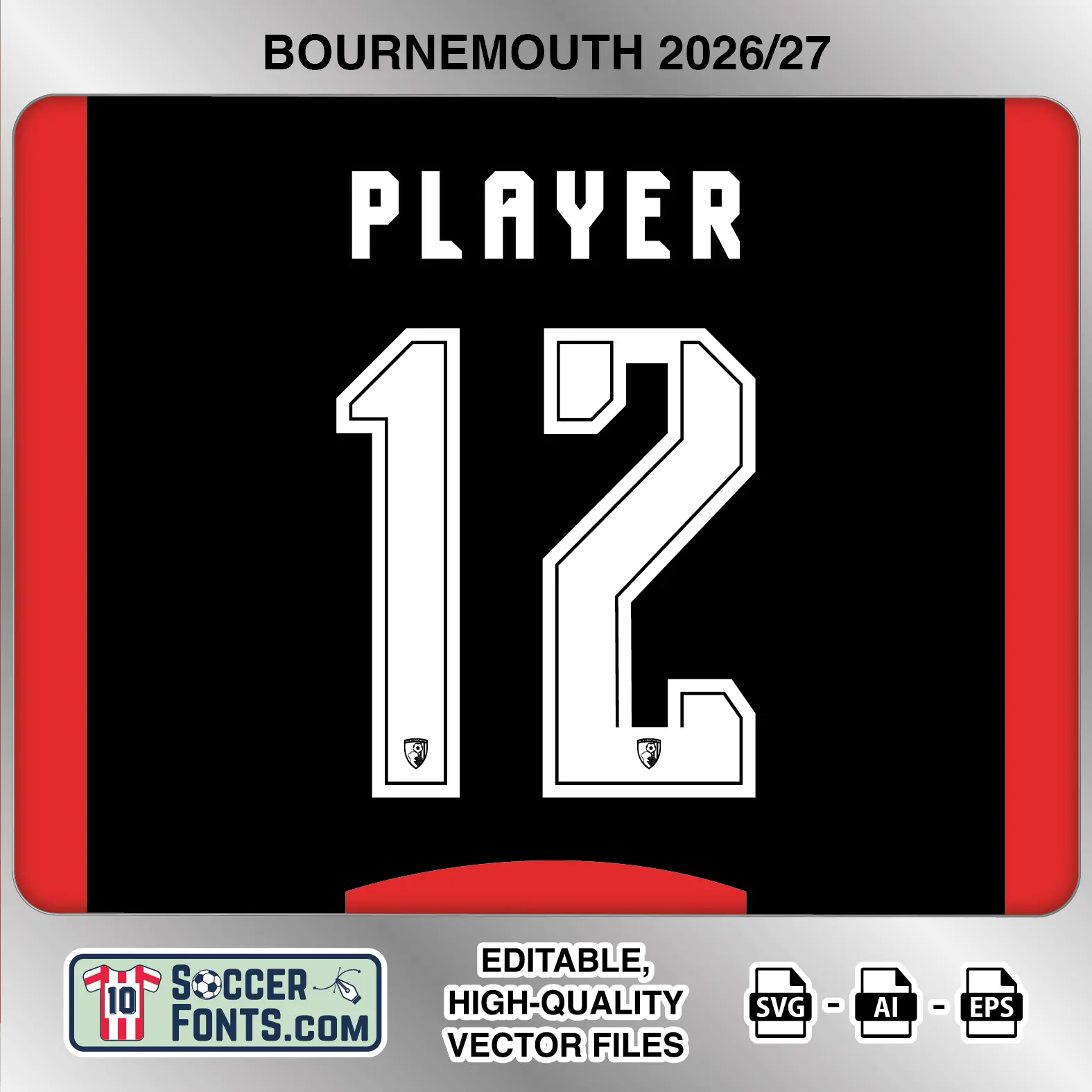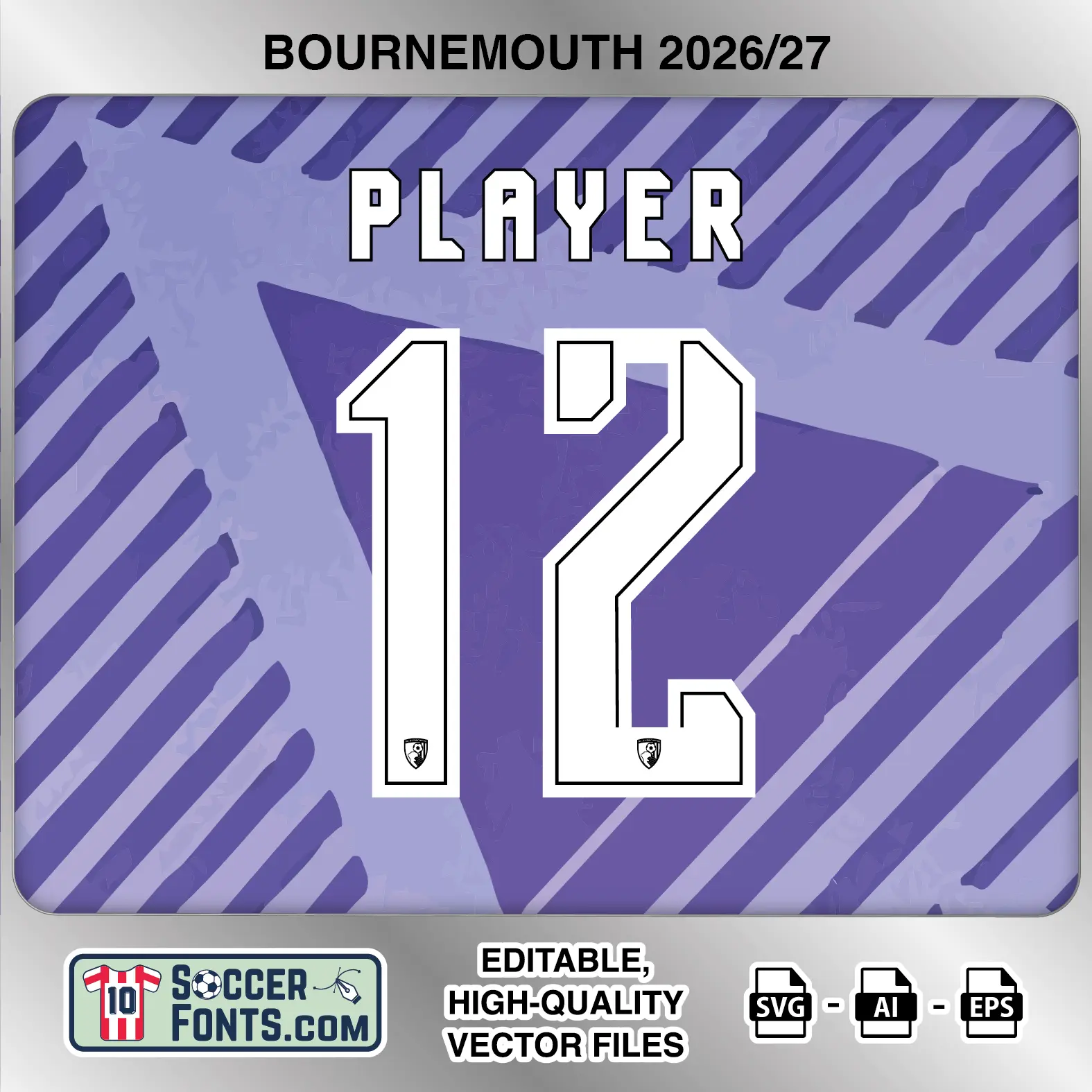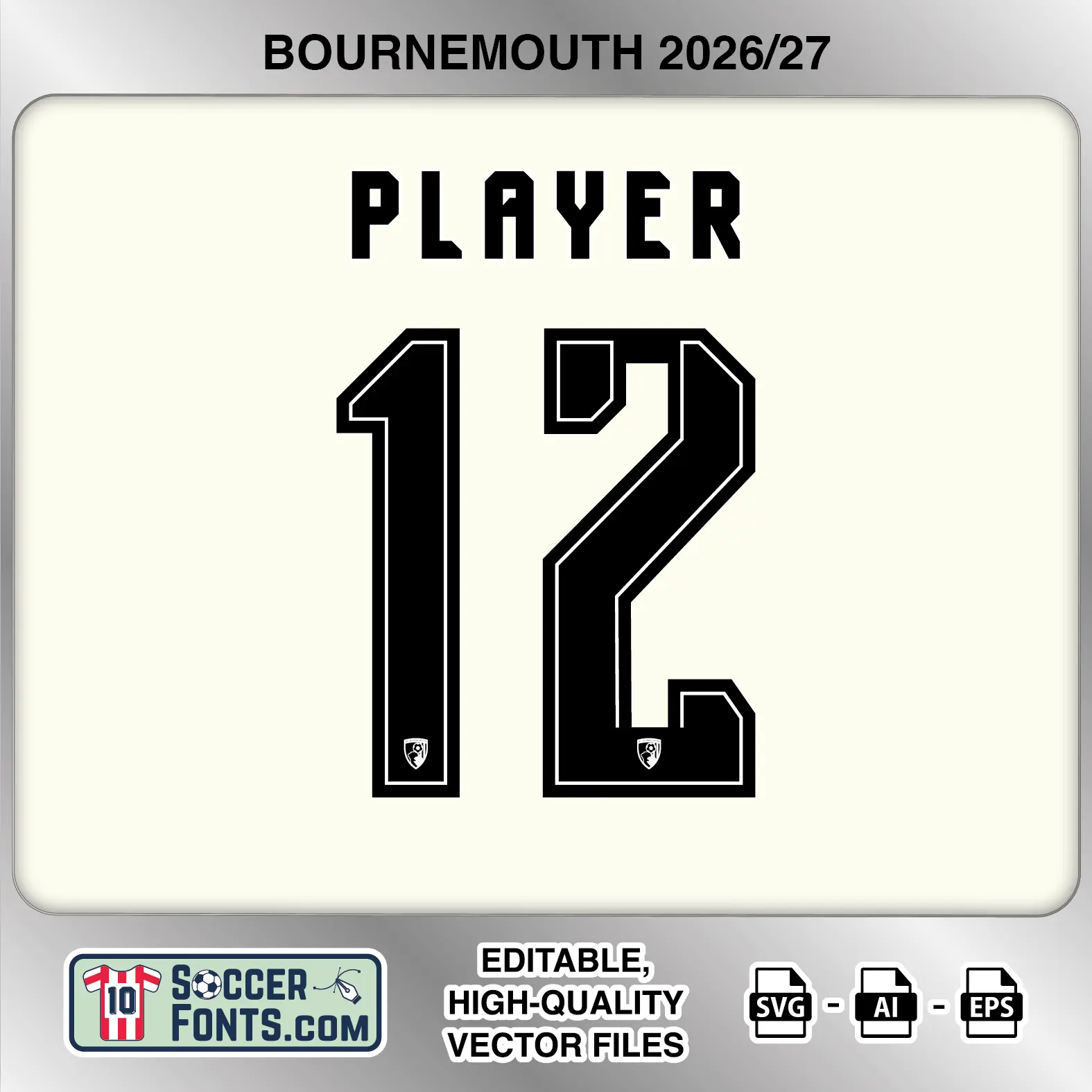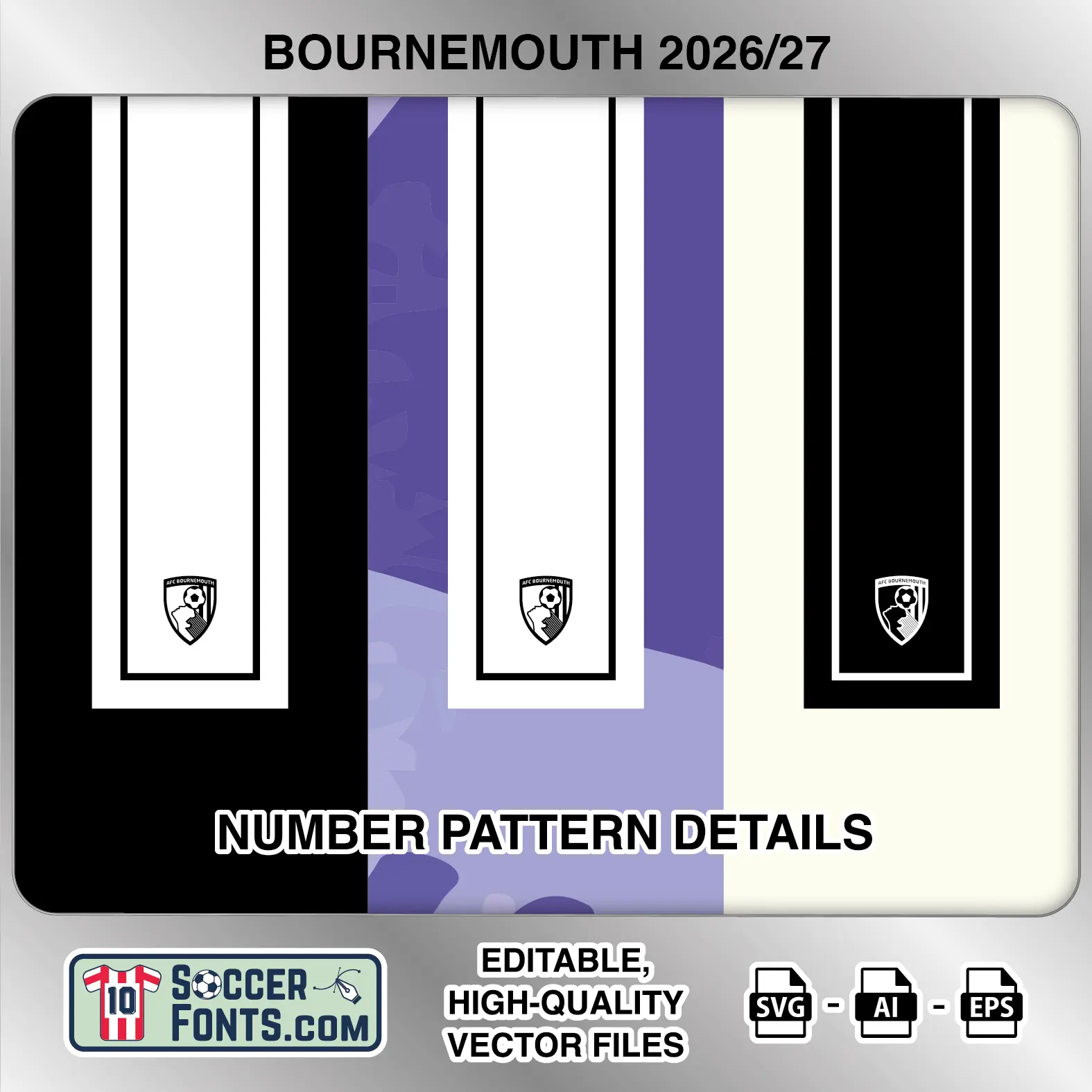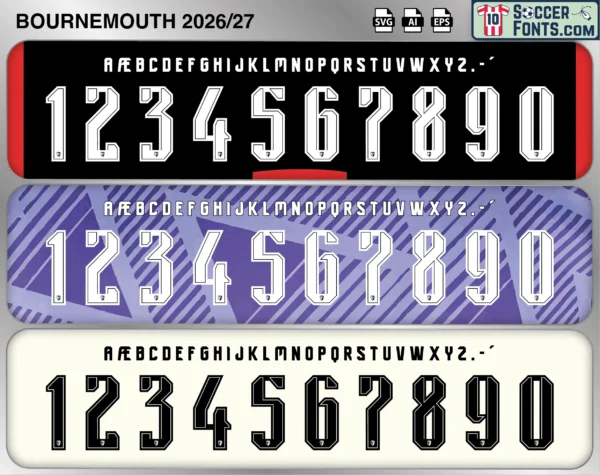
About Bournemouth 2026-27 Font
Download Bournemouth 2026-27 font, an editable soccer jersey lettering design in vector format inspired by the custom AFC Bournemouth kit typography used during the 2026-27 football season. The collection includes home, away and third color treatments for football shirt recreations, custom jersey projects, football kit mockups and sports graphic design workflows.
Visual Identity of the Font Design :
The Bournemouth lettering has a narrow, angular character style with squared construction and distinctive cut corners. The uppercase alphabet is compact and highly condensed, while the numerals are much taller and use a decorative double-line structure. Thin inset lines follow the inside edges of the numbers, giving the forms an outlined, dimensional appearance without using conventional rounded shapes. The 2 and 7 feature long diagonals, the 4 has an open construction, and the 8 uses a particularly narrow geometric center. A small AFC Bournemouth crest appears near the bottom of every numeral.
The home treatment uses white lettering and numbers with dark internal edging against the black-and-red shirt presentation. The away version retains white as the dominant color against the purple patterned background, accompanied by dark outlines for separation. The third treatment reverses the appearance with black lettering and numbers on a light background, while thin white inset lines remain visible inside the numeral forms.
Context of 2026-27 Season for Bournemouth :
The Bournemouth 2026-27 Font belongs to a landmark campaign in the history of the Cherries. After finishing sixth in the 2025-26 Premier League, Bournemouth qualified directly for the UEFA Europa League league phase, securing European football for the first time in the club’s history. Marco Rose took charge ahead of the new season, succeeding Andoni Iraola and leading the team into a campaign combining Premier League football with an entirely new European challenge.
Bournemouth’s Europa League schedule begins away to Real Sociedad before home matches against Sturm Graz, Milan, Viktoria Plzeň and Hapoel Beer-Sheva, alongside trips to Sparta Prague, Celta Vigo and Lillestrøm. The Bournemouth 2026-27 Font is therefore connected with a season in which the club’s shirts will appear on a European stage for the first time. With home, away and third applications included, the Bournemouth 2026-27 Font provides a complete lettering reference for recreating kits from this historic campaign.